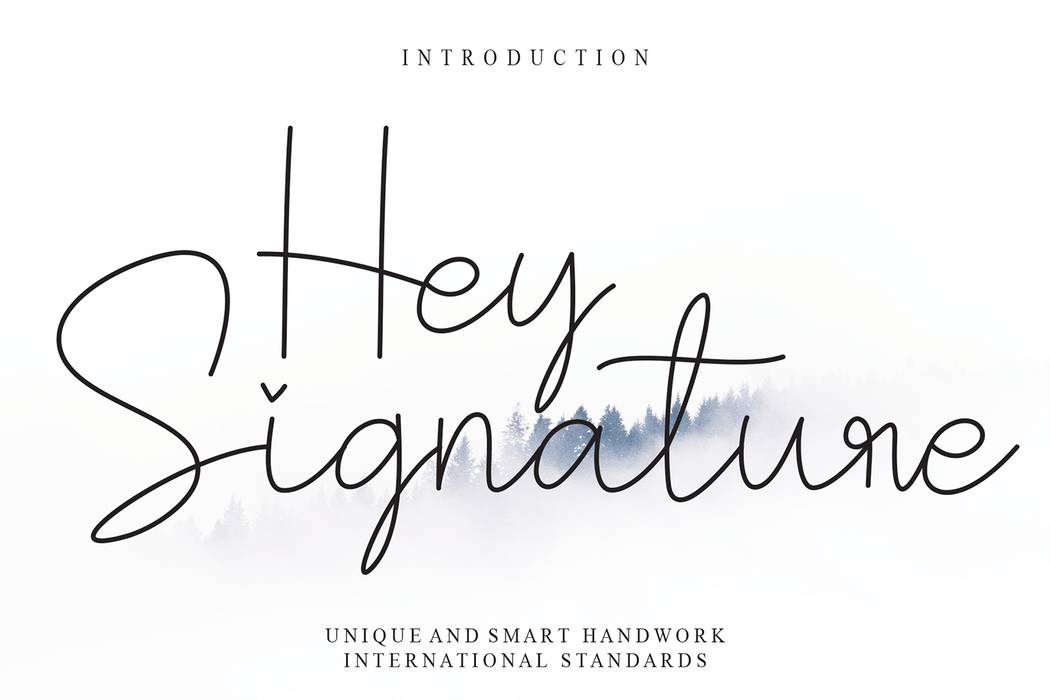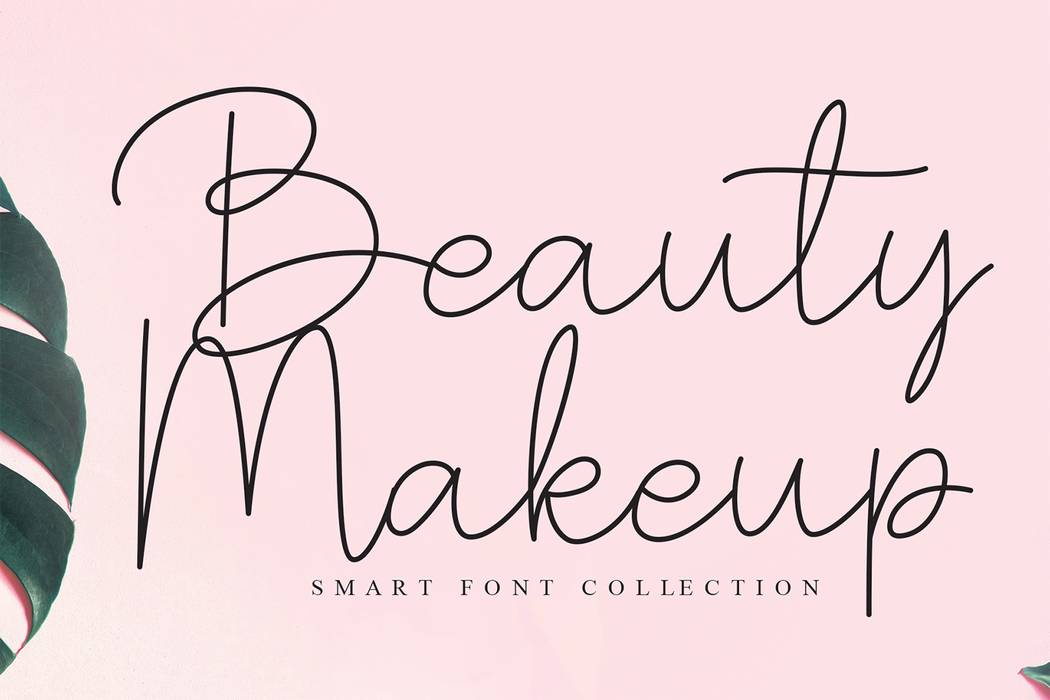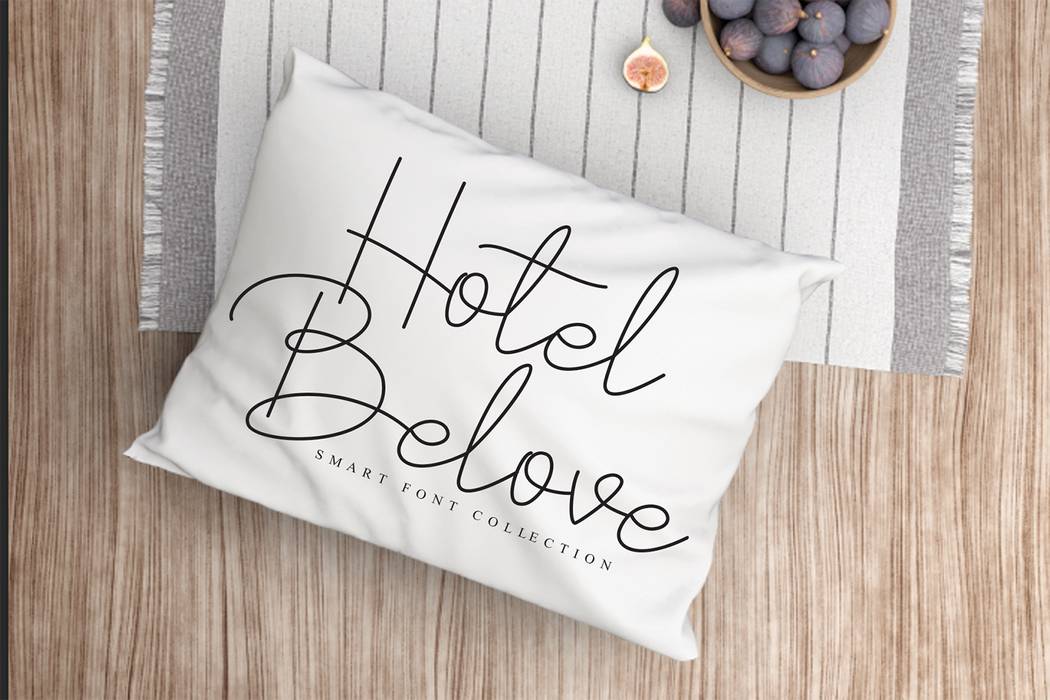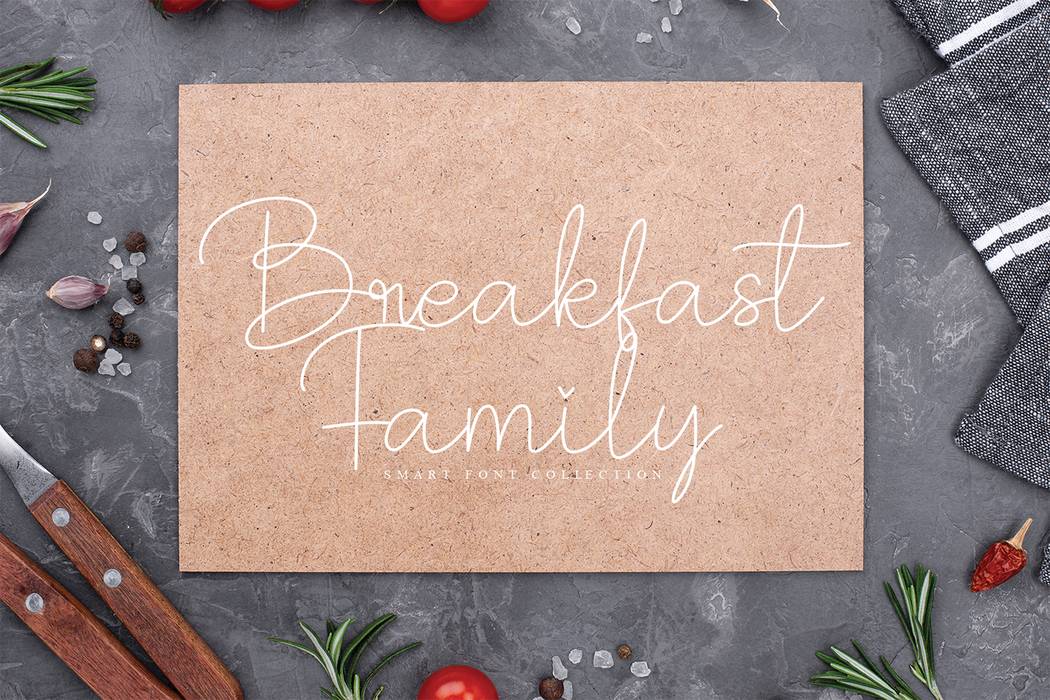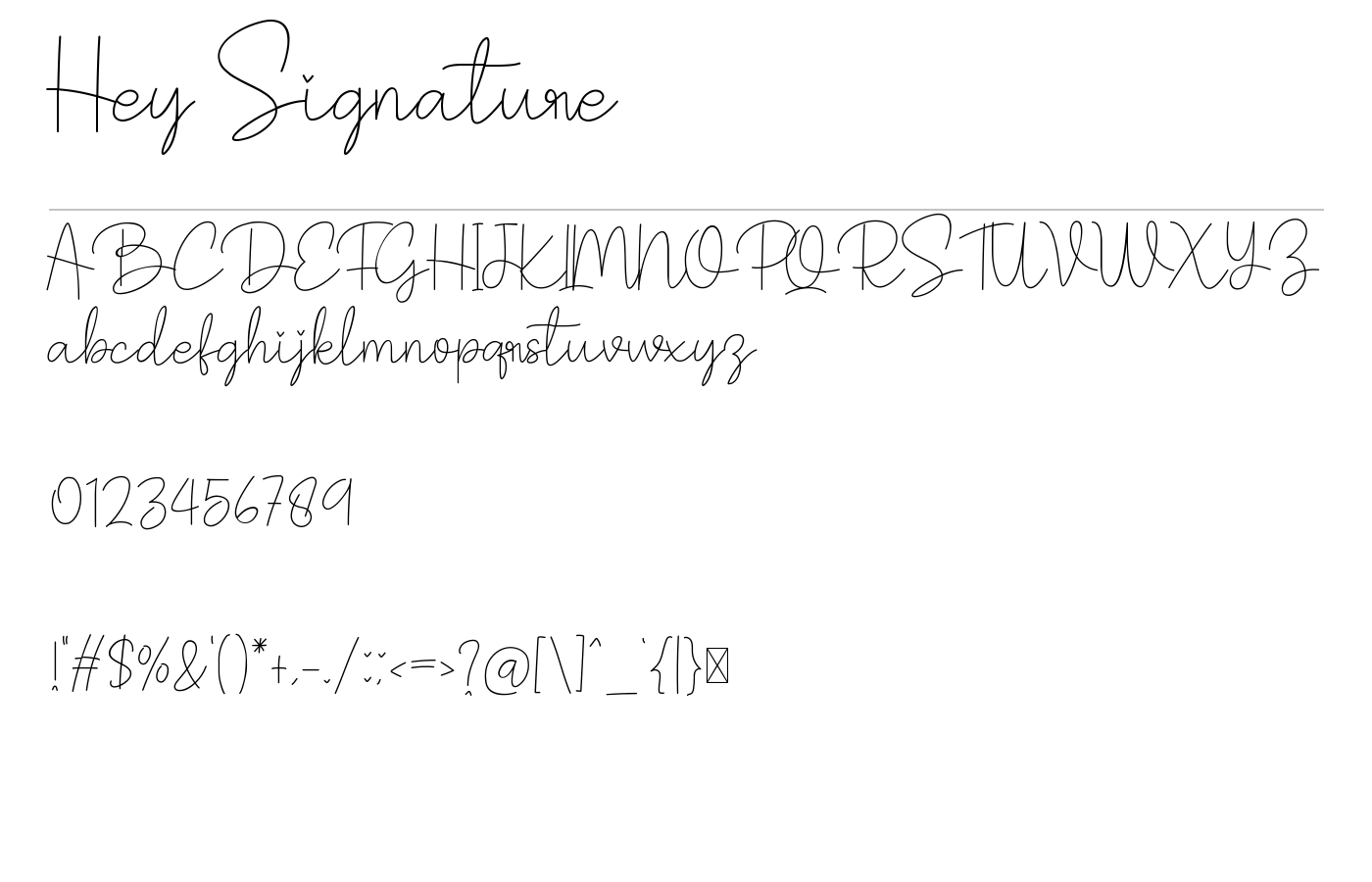
Hey Signature Font is a delicate, thin sans serif script that mimics natural handwriting with elegant, flowing strokes. Its narrow width and tall x-height give it a modern, airy feel, making it perfect for personal branding, invitations, and stylish logos where a sophisticated yet approachable vibe is desired.
Hey Signature Font
About Hey Signature Font